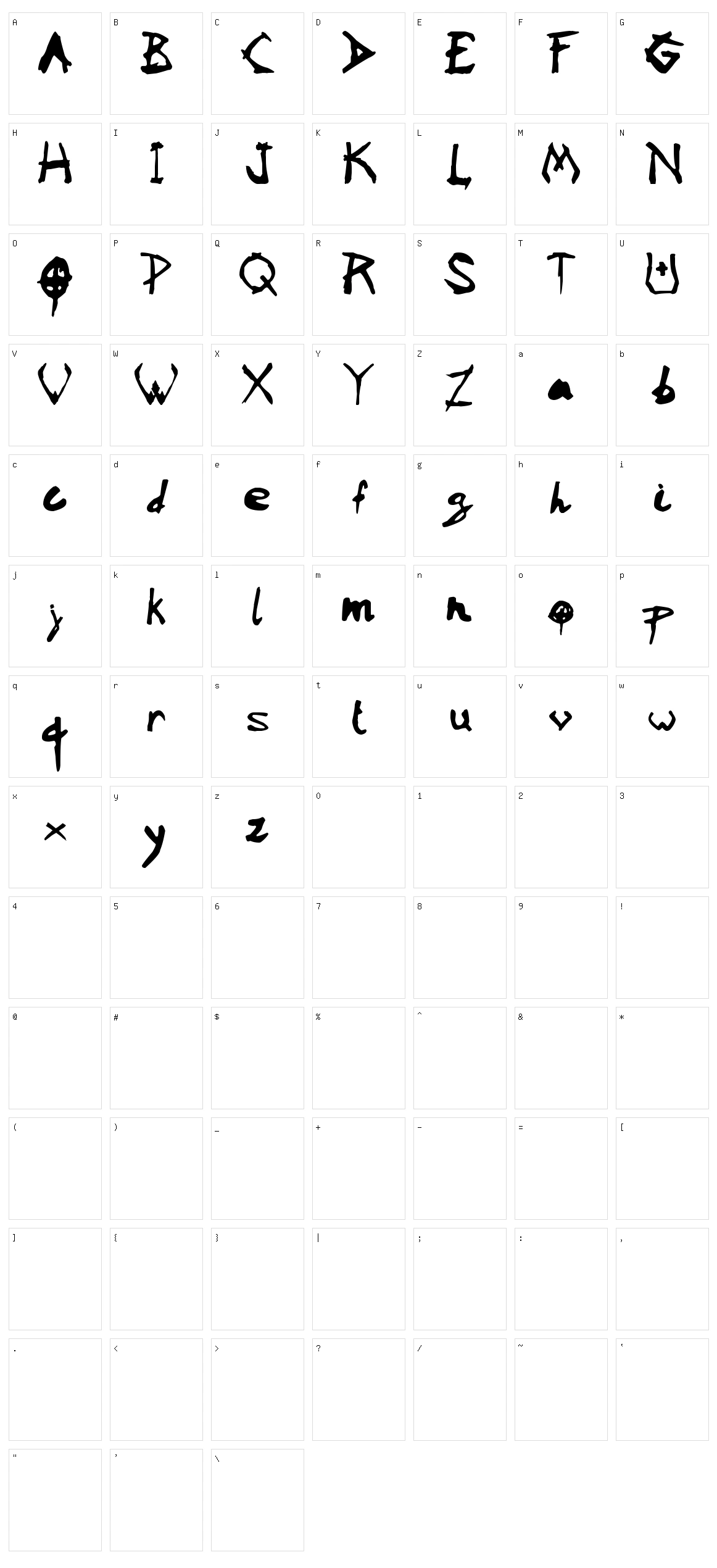
The free font Vaudoo2RF is carefully designed by Rudolf Feller, showcasing a thoughtful balance of creativity and usability and falls under the Script font style. When you download the ZIP file, it contains only 13.22 KB of font files, making it lightweight and quick to download. Please review the license details below to understand permitted usage and distribution rights. If license information is not available, we recommend using this font for personal projects only or contacting the author directly for commercial usage permissions.